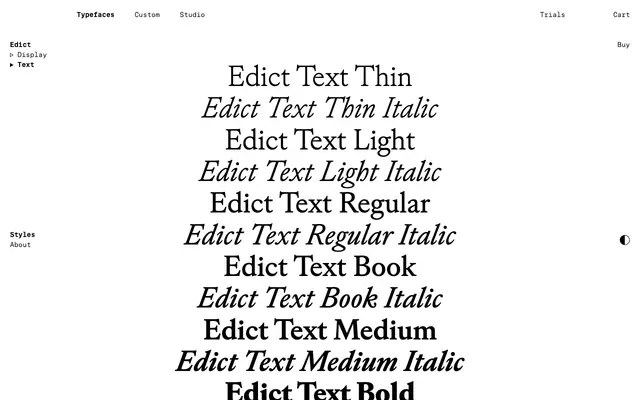
Edict Text
Edict's text optical size: a sturdier Garalde-Transitional companion for body copy, with an extra Book weight on top of the Display range.
Edict Text is the body-size optical companion to Edict Display, drawn on the same Jean Jannon and French Garalde-Transitional prototypes but with sturdier strokes, lower contrast and broader proportions for legibility at small sizes. The cut runs across six static weights including an additional Book weight that the Display style does not carry, with matching italics, swash capitals, lowercase terminal forms and small caps. Latin Extended language support and a full OpenType figure set make it usable in long-form editorial settings, paired up to Edict Display for headlines.
The Text optical size of Edict, with sturdier proportions and lower contrast for body copy; built on Jean Jannon and the wider French Garalde-Transitional tradition. Includes an additional Book weight that the Display style does not.